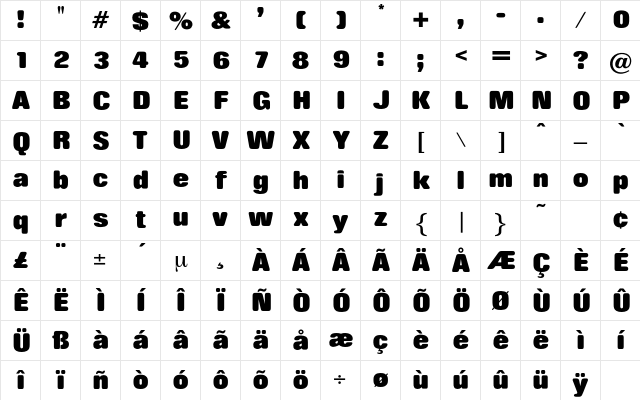
Stones Regular
Design Context for Stones
Stones is a composed and adaptable typeface that performs quietly and consistently across a wide range of design contexts.